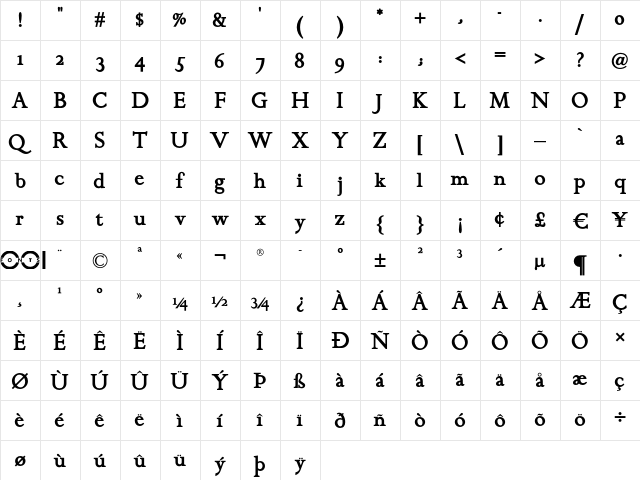
Chanticleer Roman NF Bold
Design Context for Chanticleer Roman NF Typeface
Chanticleer Roman NF offers clean, dependable letterforms without strong stylistic allegiance, making it a practical choice for designers who need flexibility. The heavy weight commands attention and anchors typographic hierarchies.